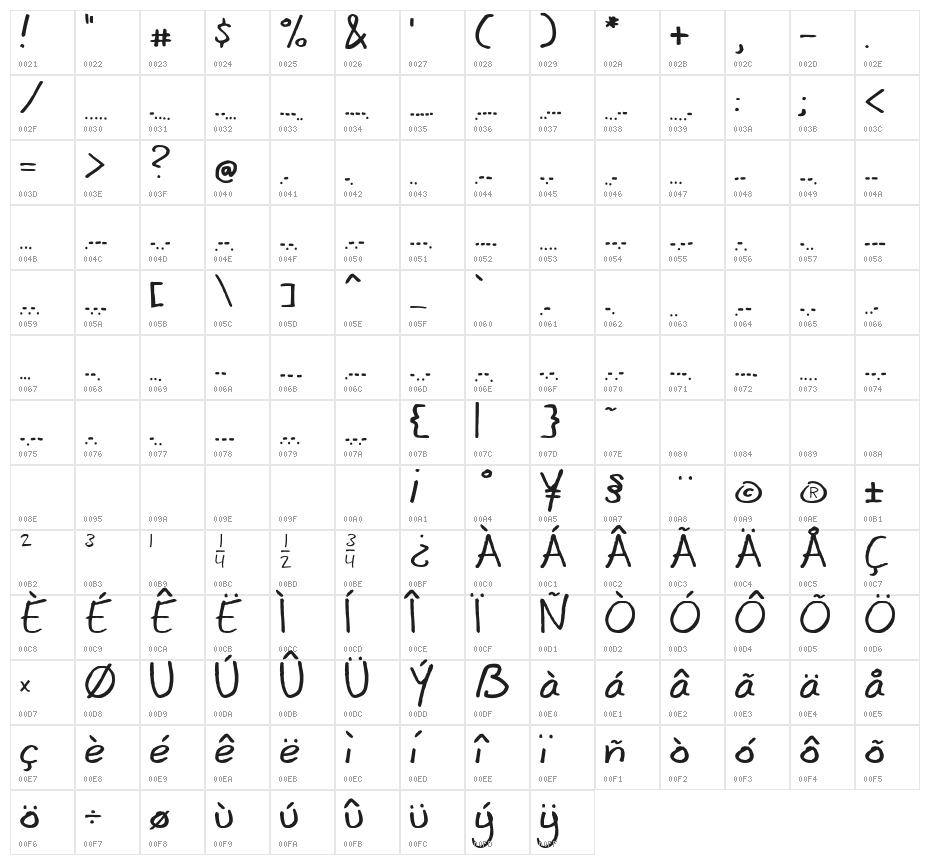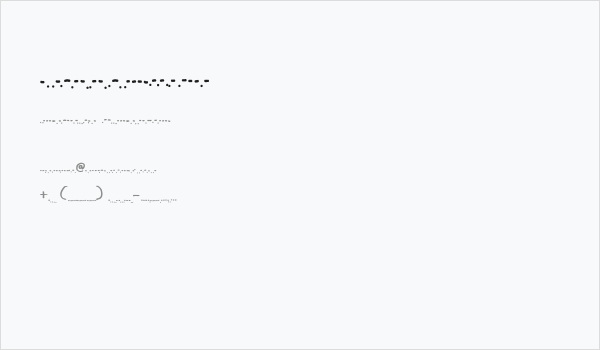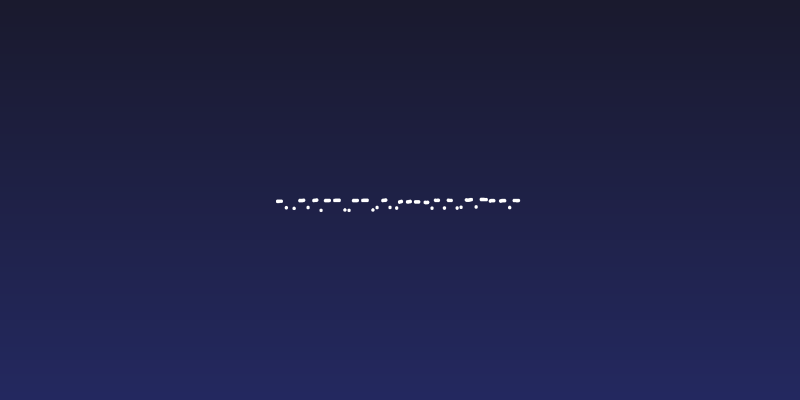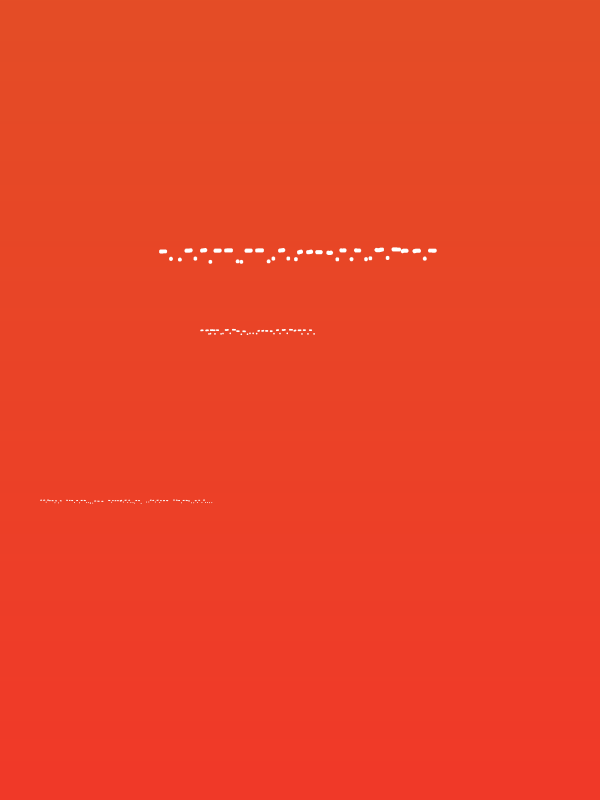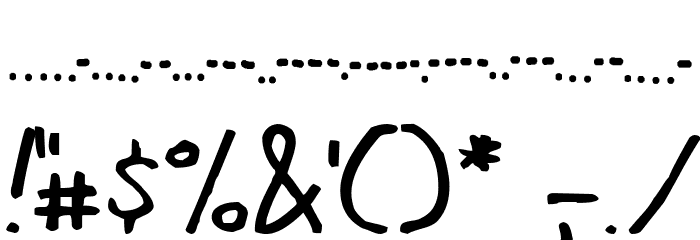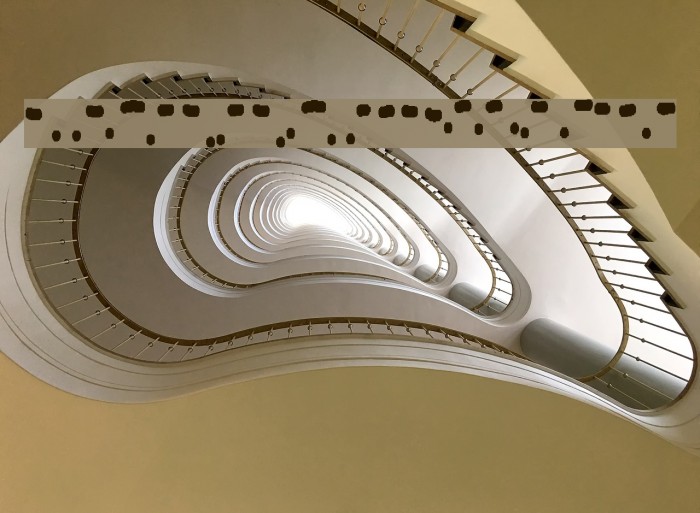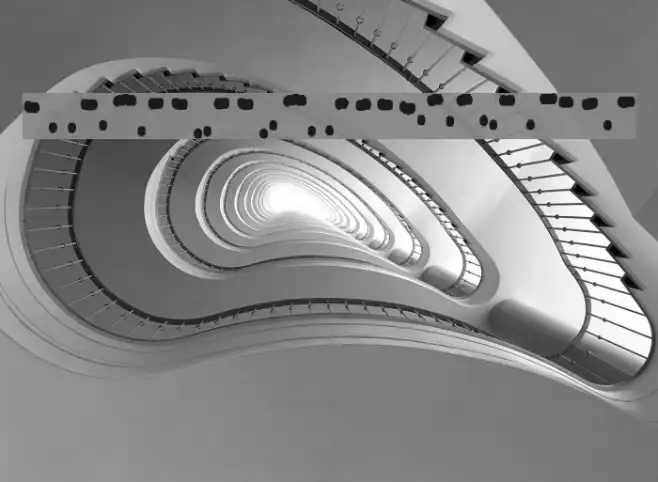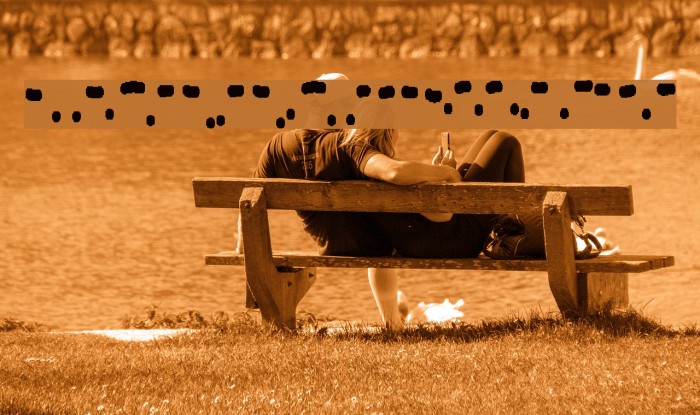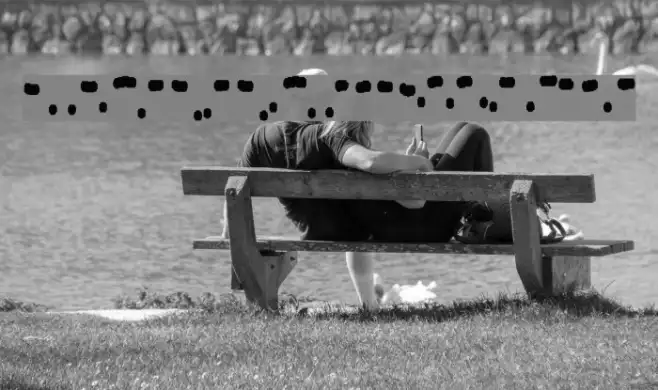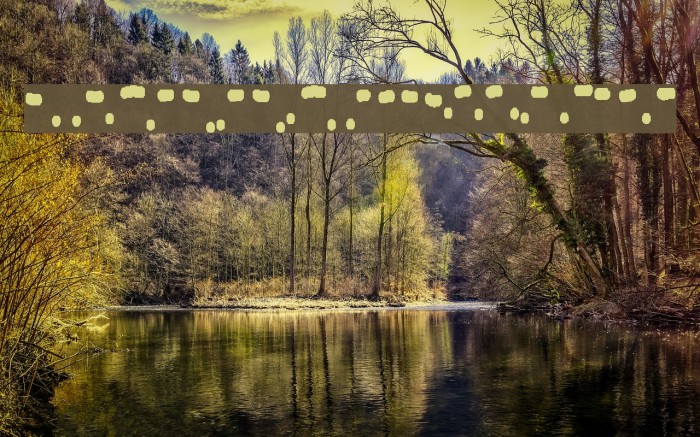
mannacrypt Font
mannacrypt Description
This design features a series of dots and dashes reminiscent of Morse code, creating a cryptic and intriguing visual style. The characters are composed of varying lengths of dots and dashes, giving it a unique and abstract appearance. The overall look is minimalist yet complex, with each character maintaining a distinct pattern that is both artistic and functional. This design is not a traditional font but rather a symbolic representation that could be used for creative purposes.
| Overall Style | Modern, Abstract |
| Use Case | Artistic designs, Creative branding, Secret messages |
| Proposed Projects | Ideal for artistic projects, secret messages, or creative branding that requires a cryptic and mysterious aesthetic. |